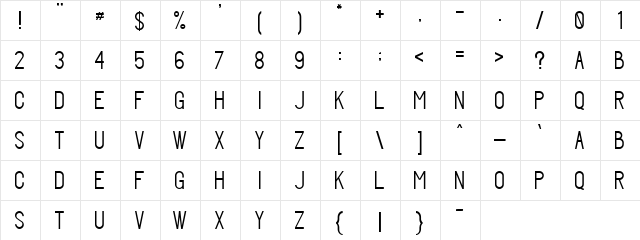
Oswaldesque Regular
| Foundry | Boris Garic |
| Designer | Boris Garic |
Design Context for Oswaldesque Typeface
Oswaldesque is a composed and adaptable typeface that performs quietly and consistently across a wide range of design contexts.